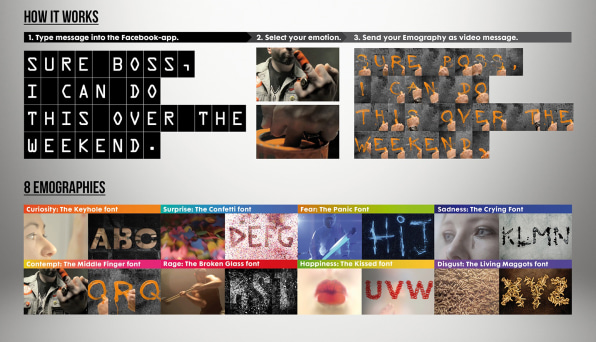
As daily human interaction continues to devolve into a grammar-free, increasingly vowel-less collection of letters and numbers sent via text message, the challenge to convey true emotion becomes ever more pronounced. Somehow, “Fluff iz dun. gon 2 crem8. no mo lulz” doesn’t quite encapsulate the sadness in a family cat’s death as effectively as a face to face or even phone call once did.
But agency FCB Zurich and MTV Mobile aimed to change that with a new kind of text typography. For the Facebook app “Emography,” they created a special font for eight basic human emotions. If you’re angry, you can write sentences with a colored middle-finger gesture. If you’re happy, you can create sentences with kisses. If you’re sad, the words get made with tears. Oh, and if you want to talk about something disgusting, your words are made of living maggots. You pick a recipient in the Facebook app, write the sentence, pick the desired emotion, and it gets sent as a video message.
It’s about as much work as finding a recipient in your contacts list, picking a number, waiting for the dial, and then sending your emotions via your own vocal chords in-person or in a voicemail message. Of course that doesn’t have broken glass or maggots, so nevermind.